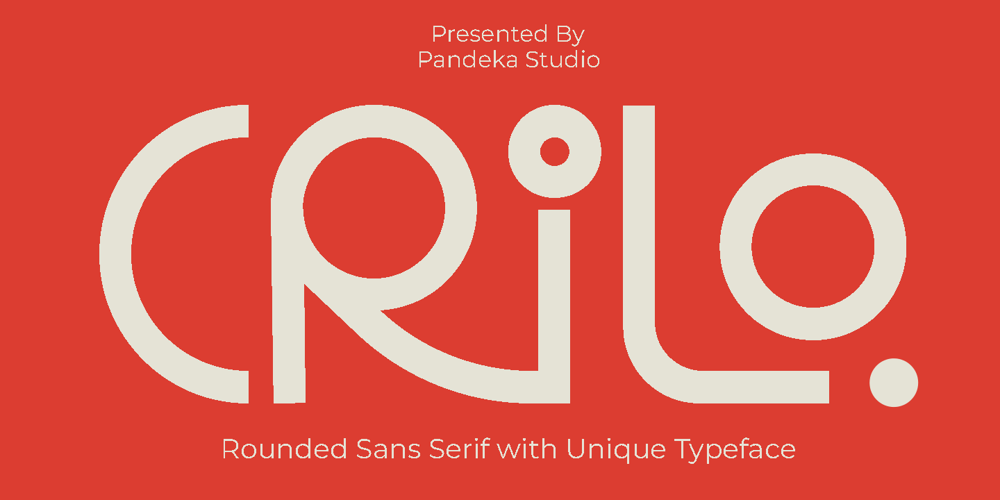
Crilo Font Family was designed by Sagara Nararya and published by Pandeka Studio. Crilo contains 1 styles and family package options. Presenting our new playful sans serif, Crilo!Crilo is modern fashion and unique gylph font, every single letters have been carefully crafted to make your text looks unique.Features: Crilo Main Files Instructions (Access special characters in all apps, even in Cricut Design) Accessible in Adobe Illustrator, Adobe Photoshop, Microsoft Word even Canva! PUA Encoded Characters. Fully accessible without additional design software Language Support: Danish, English, Estonian, Filipino, Finnish, French, Friulian, Galician, German, Gusii, Indonesian, Irish, Italian, Luxembourgish, Norwegian Bokmål, Norwegian Nynorsk, Nyankole, Oromo, Portuguese, Romansh, Rombo, Spanish, Swedish, Swiss-German, Uzbek (Latin) Feel free to follow, like and share. Thanks so much for checking out my shop!Have a great day!Pandeka Studio